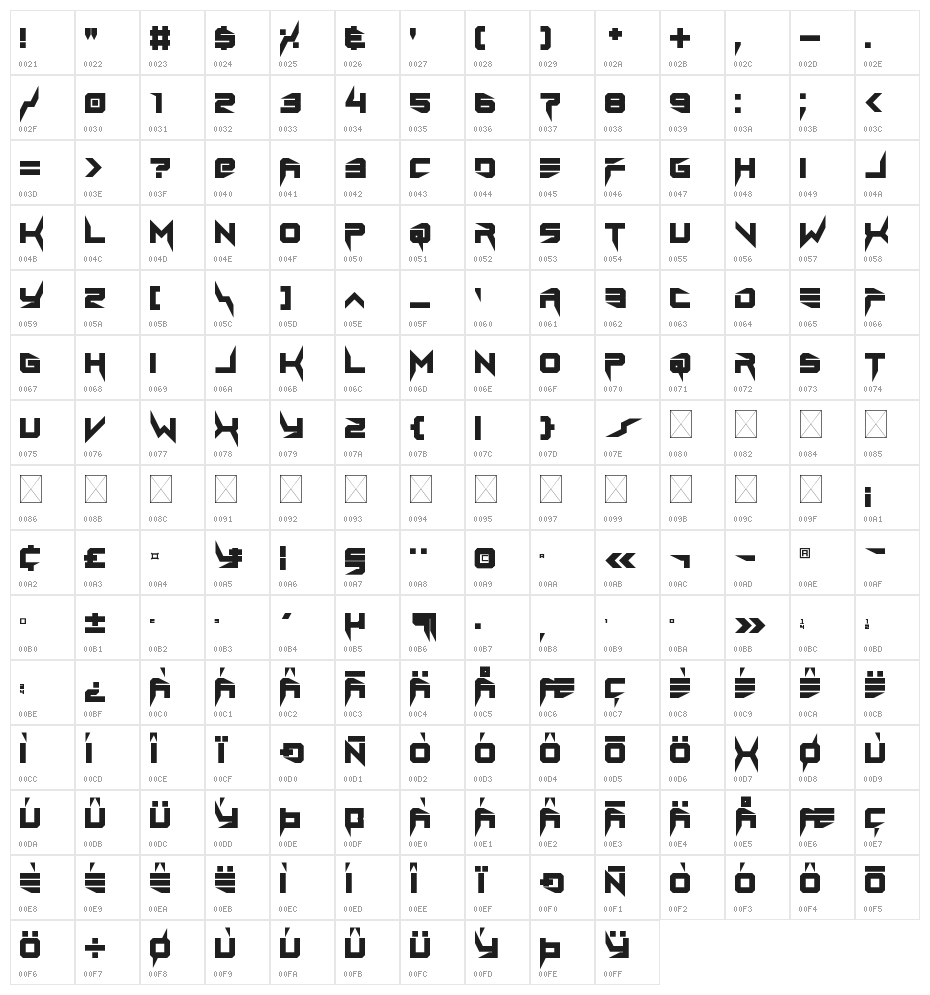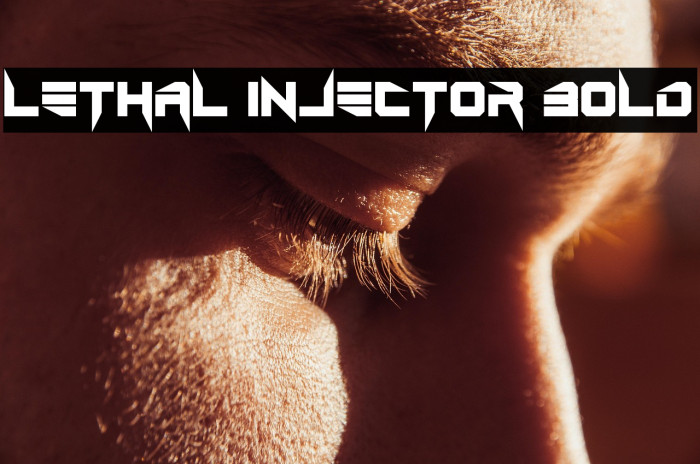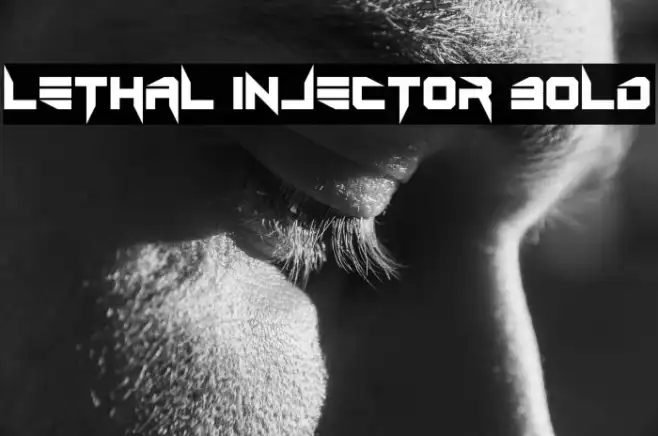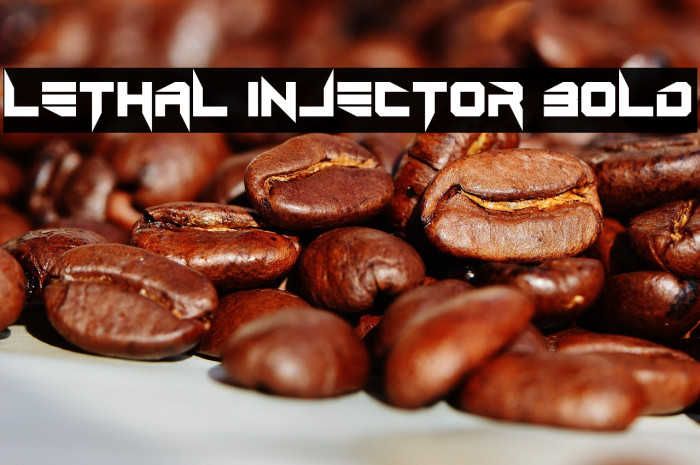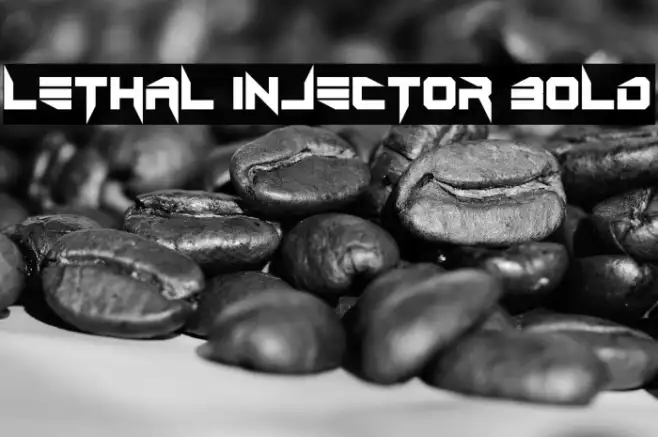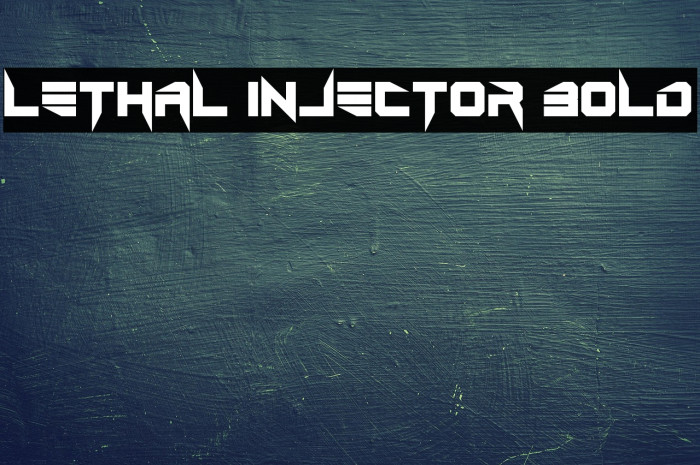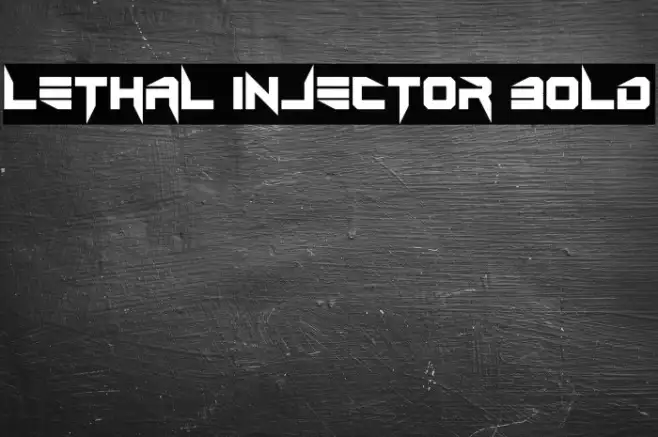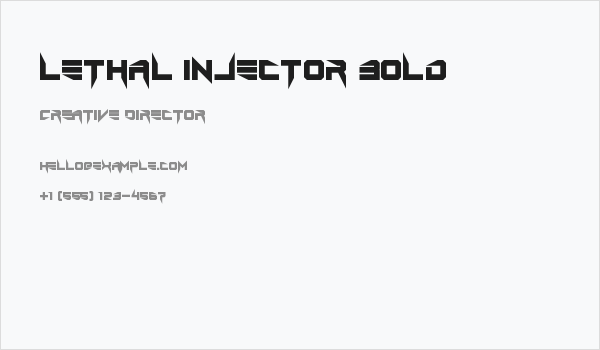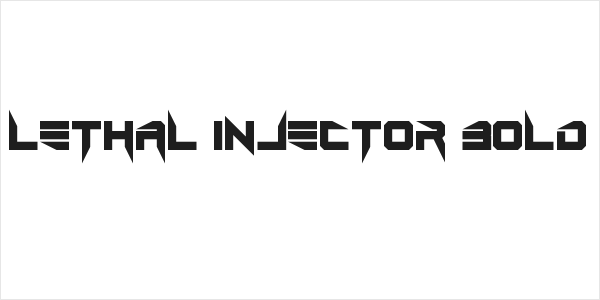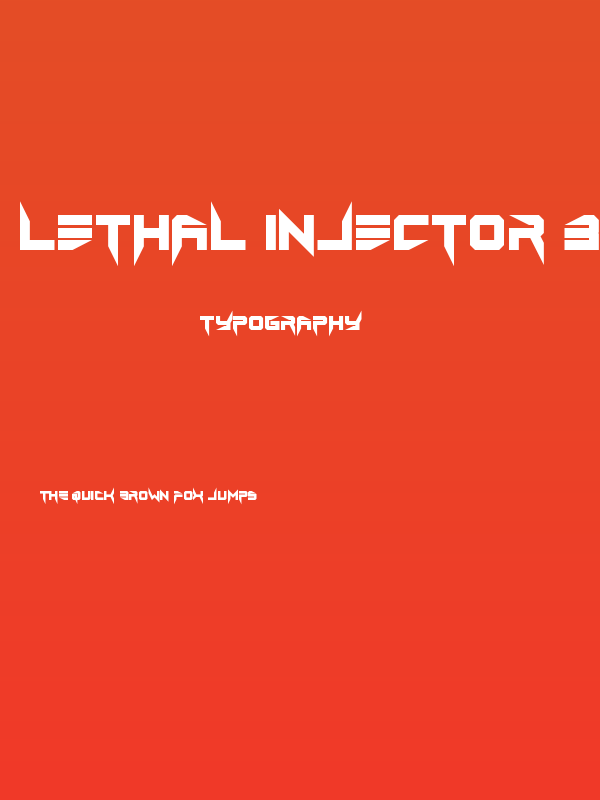
Lethal Injector Bold Font
Lethal Injector Bold Description
This font features a bold, angular design with sharp, geometric edges that create a futuristic and aggressive appearance. The characters are constructed with a series of straight lines and pointed angles, giving them a distinct, edgy look. The uppercase and lowercase letters maintain a consistent style, with the uppercase being more prominent and striking. Numbers and special characters follow the same angular theme, ensuring uniformity across the font. The overall design is highly stylized, making it suitable for projects that require a strong, impactful visual presence.
| Proposed Projects | Ideal for video game titles, movie posters, sci-fi themed projects, and branding that requires a bold, modern edge. |